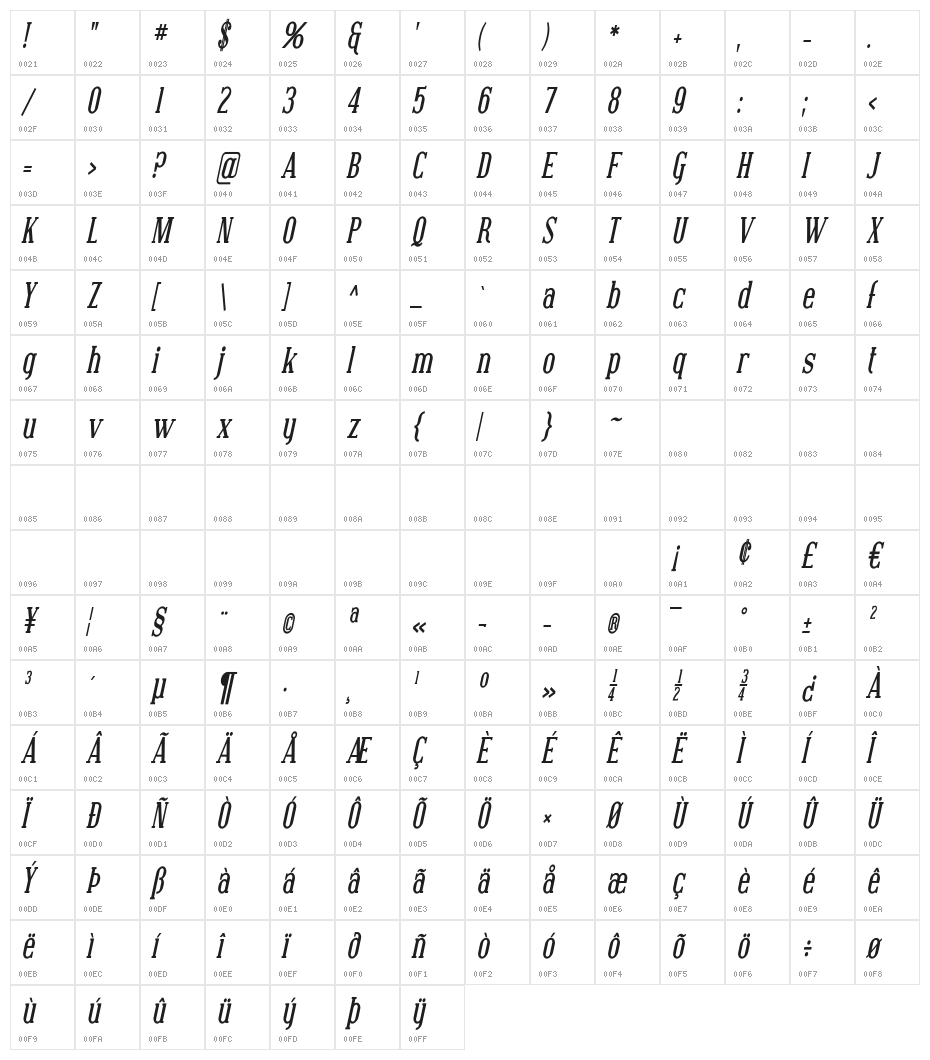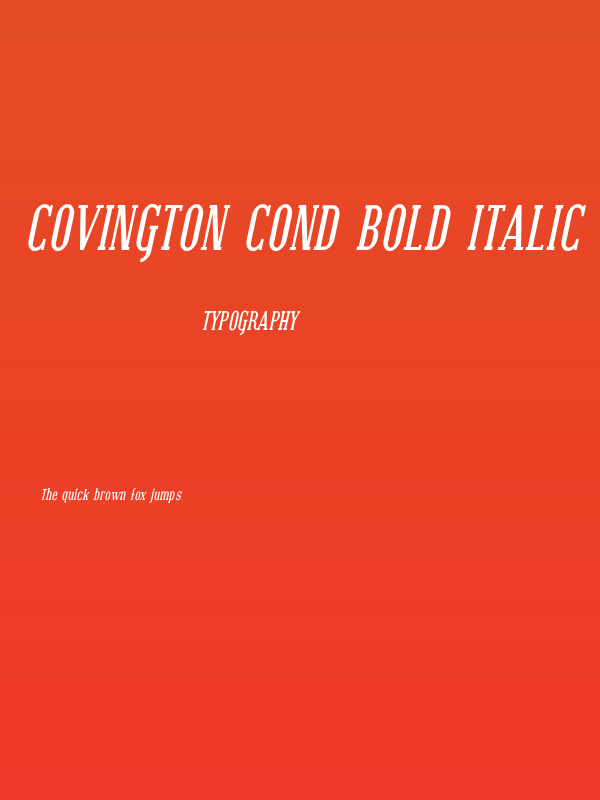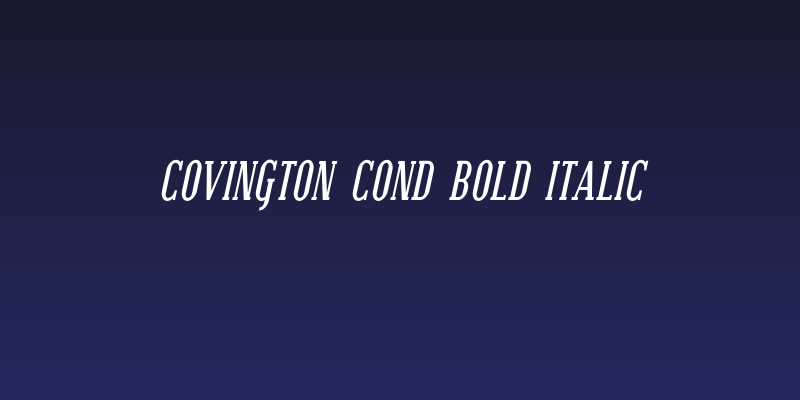
Covington Cond Bold Italic Font
Covington Cond Bold Italic Description
This font features a bold and italicized style with condensed letterforms, creating a dynamic and impactful appearance. The uppercase and lowercase letters maintain a consistent slant, enhancing the italic effect. The numerals are clear and legible, while the special characters are well-defined, making them suitable for various applications. The strokes are thick, providing a strong presence, and the overall design is modern yet retains a classic touch, making it versatile for both digital and print media.
| Proposed Projects | Ideal for branding, headlines, posters, and editorial design where a strong and stylish impact is needed. |